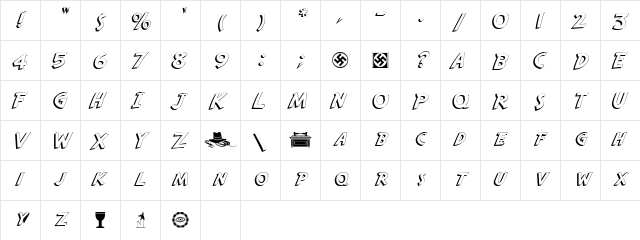
SafariShadow Regular
Design Context for SafariShadow Typeface
SafariShadow brings ornamental detail and strong personality to headlines and identities, where visual impact matters more than quiet functionality.
Font Pairing: Pair with a clean neutral sans-serif for body copy to let SafariShadow's character lead without overwhelming the composition.
Pro Tip: Use SafariShadow exclusively at display sizes — it was designed to be seen, not read at length. Let a neutral companion handle body copy.